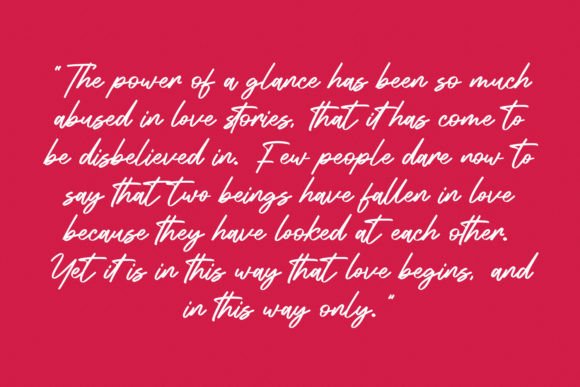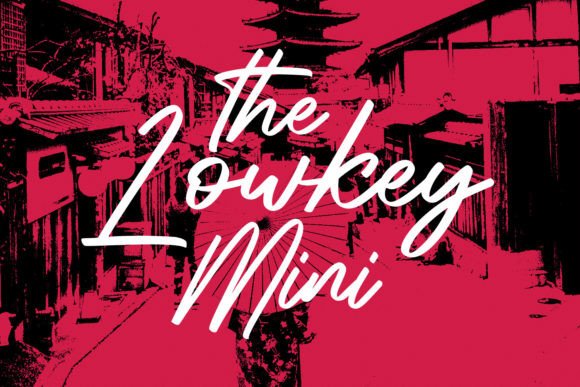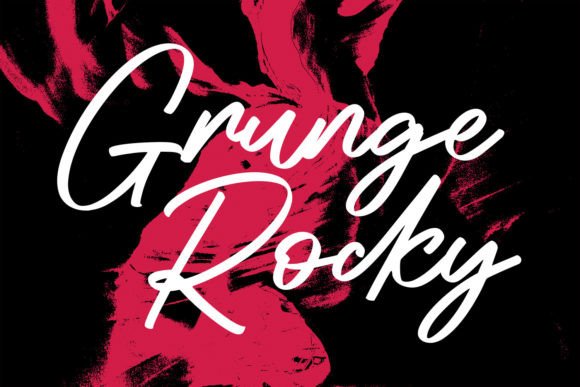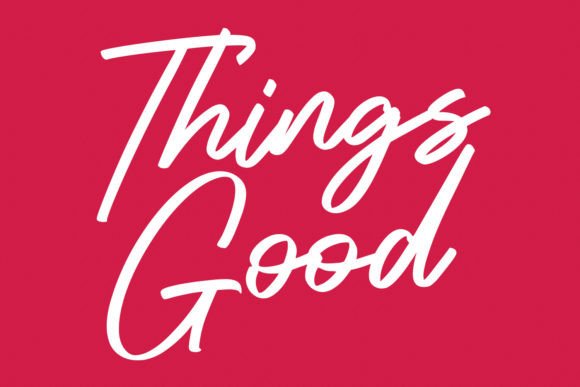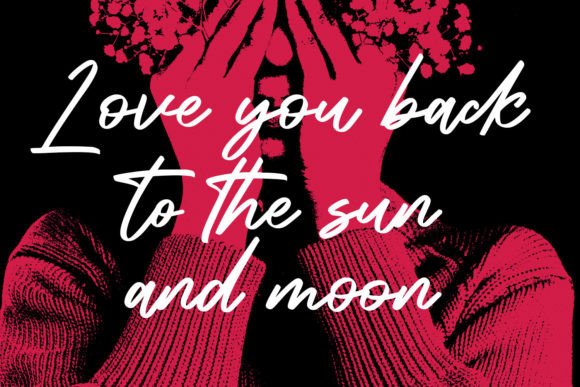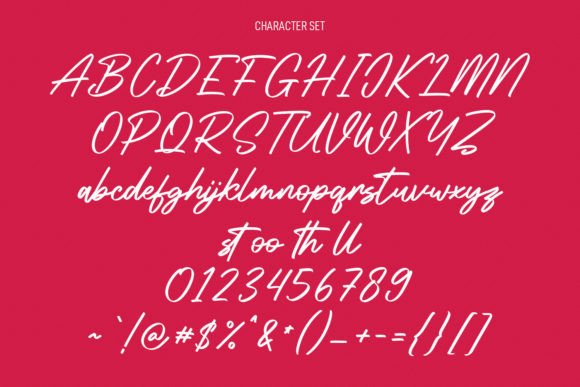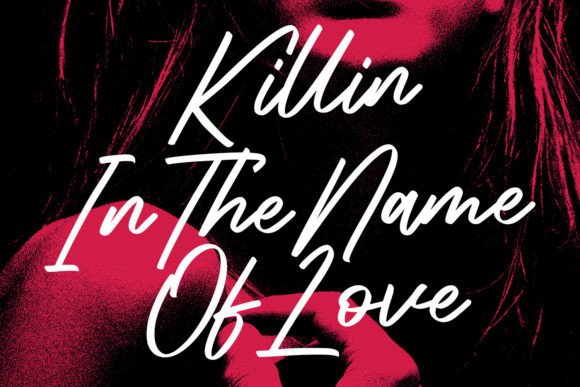
Slickstyle Font
About Slickstyle Font
Slickstyle Font is a magical script typeface crafted with elegance and precision. Its graceful curves and flowing strokes make it ideal for projects that need sophistication and charm. Because of its versatile design, Slickstyle Font works beautifully in Instagram posts, invitations, branding, and DIY creative projects.
An Elegant Script Typeface with Style
Script fonts naturally bring a refined touch, and Slickstyle Font enhances this with its polished and balanced structure. Its delicate lines and elegant details create a professional look while still feeling warm and approachable. Moreover, its adaptability makes it suitable for both personal crafts and professional branding. As a result, this typeface provides designers with a perfect blend of beauty and usability.
Perfect Typeface for Invitations and DIY Projects
For invitations, thank-you notes, and greeting cards, Slickstyle Font adds sophistication. For example, it can transform a wedding invitation into a keepsake filled with charm. In addition, it works wonderfully for DIY projects, scrapbooking, and personalized stationery. Because of its flowing elegance, every design created with this script feels unique and memorable.
A Script Typeface for Social Media and Branding
Brands and influencers who want to create stylish digital content will find Slickstyle Font especially useful. On Instagram and other platforms, it enhances posts, banners, and stories with a touch of sophistication. Furthermore, it works well for product packaging, logos, and promotional materials. When paired with minimalist sans serif fonts, Slickstyle Font creates a balanced and modern brand identity.
Another strength of Slickstyle Font is its adaptability across formats. In print, it enhances posters, brochures, magazines, and merchandise. Digitally, it works seamlessly on websites, blogs, and presentations. Since it scales well, it remains elegant and clear whether used for small captions or large headlines.